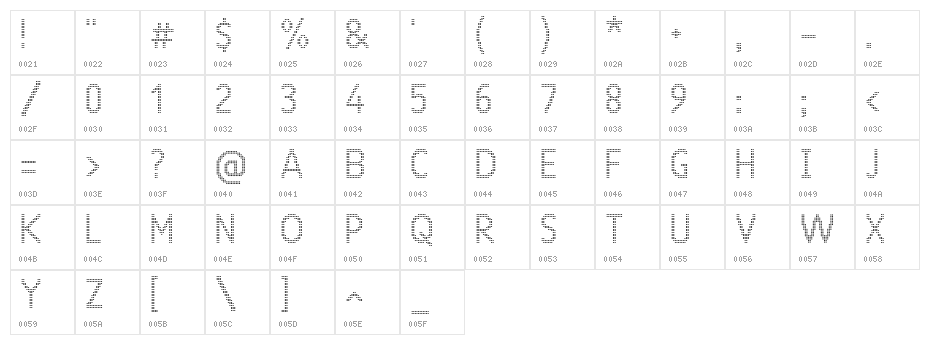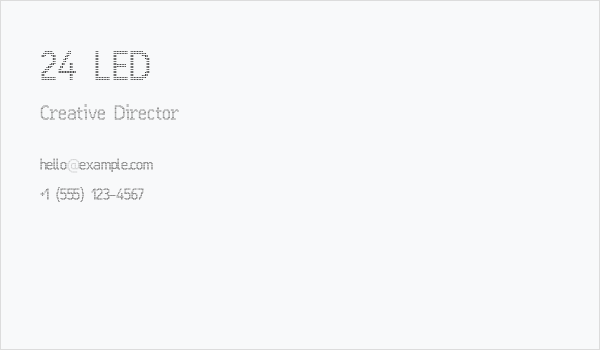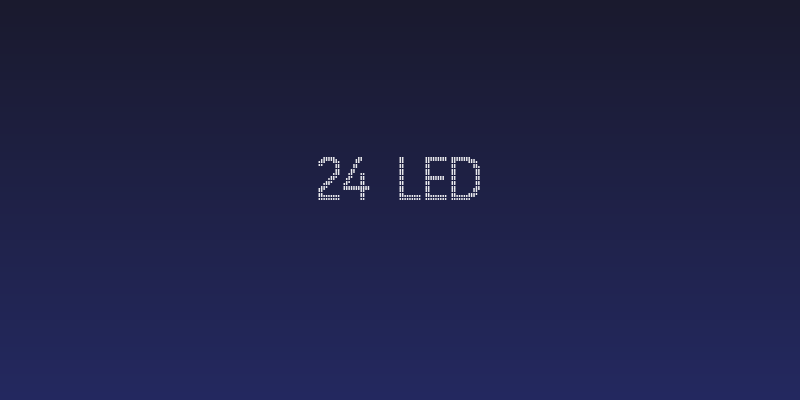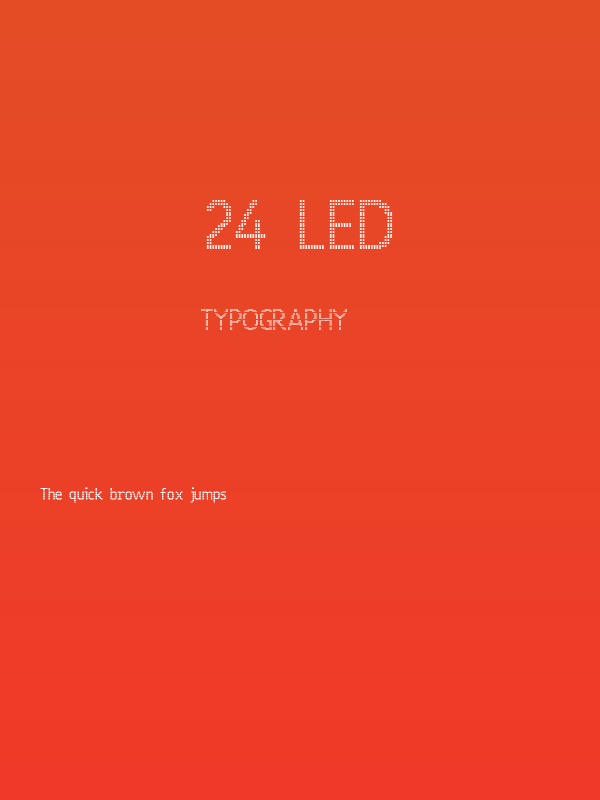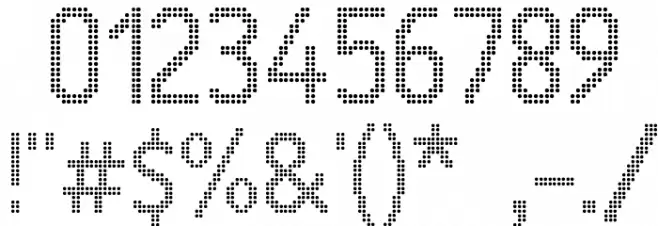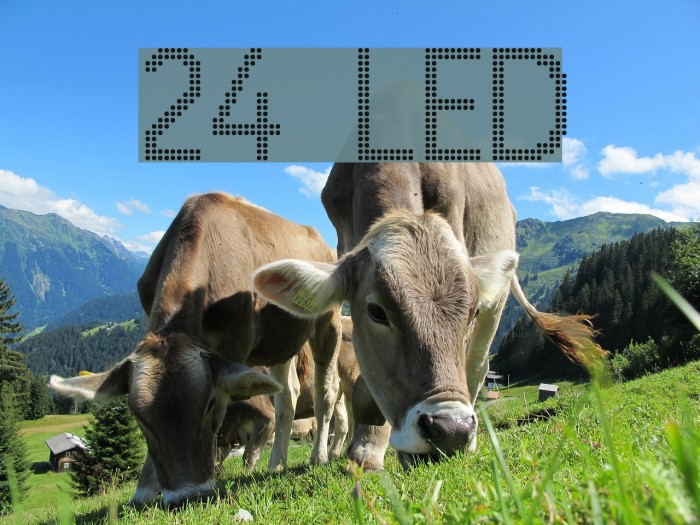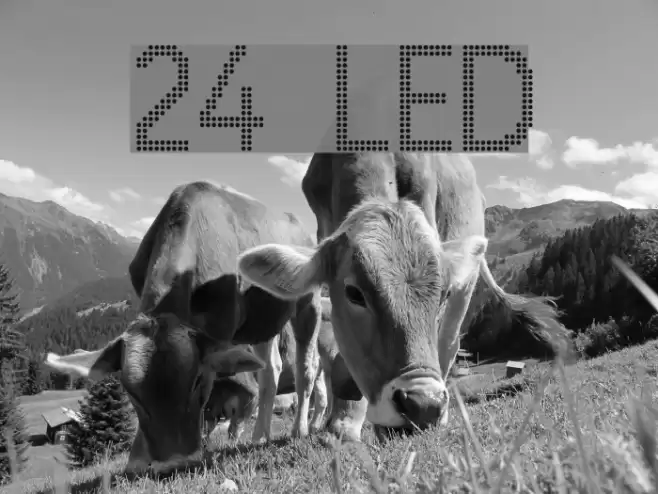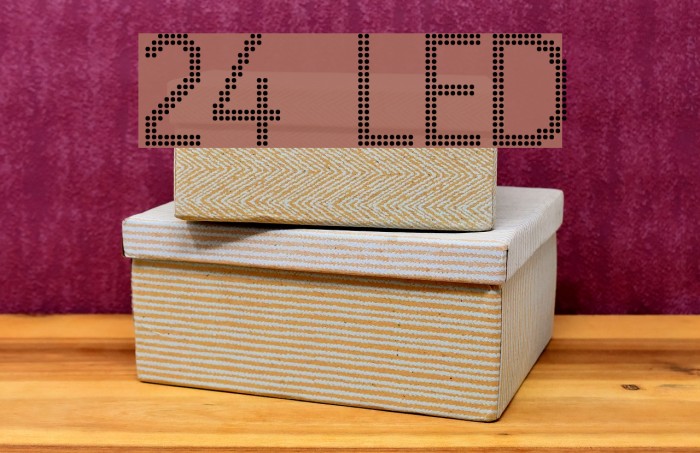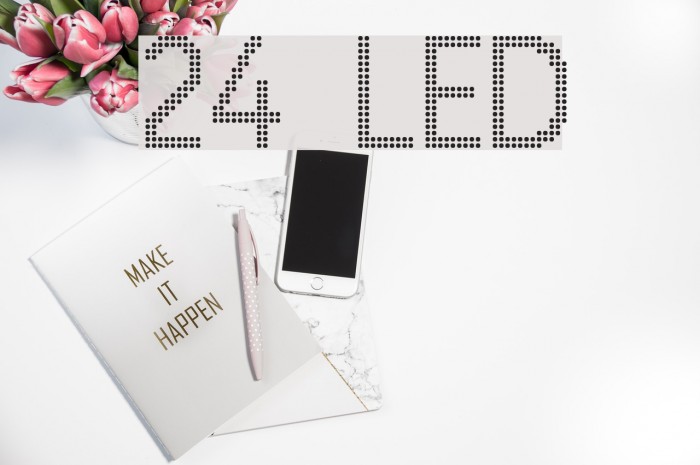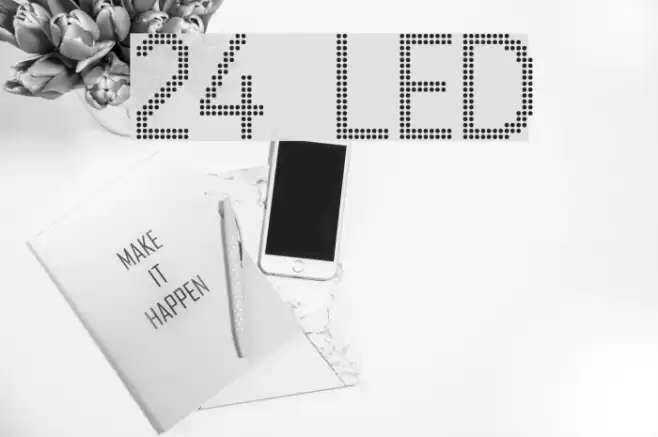
24 LED Font
24 LED Description
This font is characterized by its unique dot matrix design, reminiscent of digital displays and LED screens. Each character is composed of a grid of dots, creating a pixelated effect that is both modern and retro. The uppercase and lowercase letters maintain a consistent style, with clear geometric shapes that ensure legibility. Numbers and special characters follow the same dot pattern, making the font versatile for various applications. The overall appearance is clean and structured, ideal for conveying a tech-savvy or futuristic aesthetic.
| Use Case | Headlines, Logos, Digital Displays |
| Proposed Projects | Ideal for digital displays, tech-themed designs, retro gaming graphics, and electronic device interfaces. |